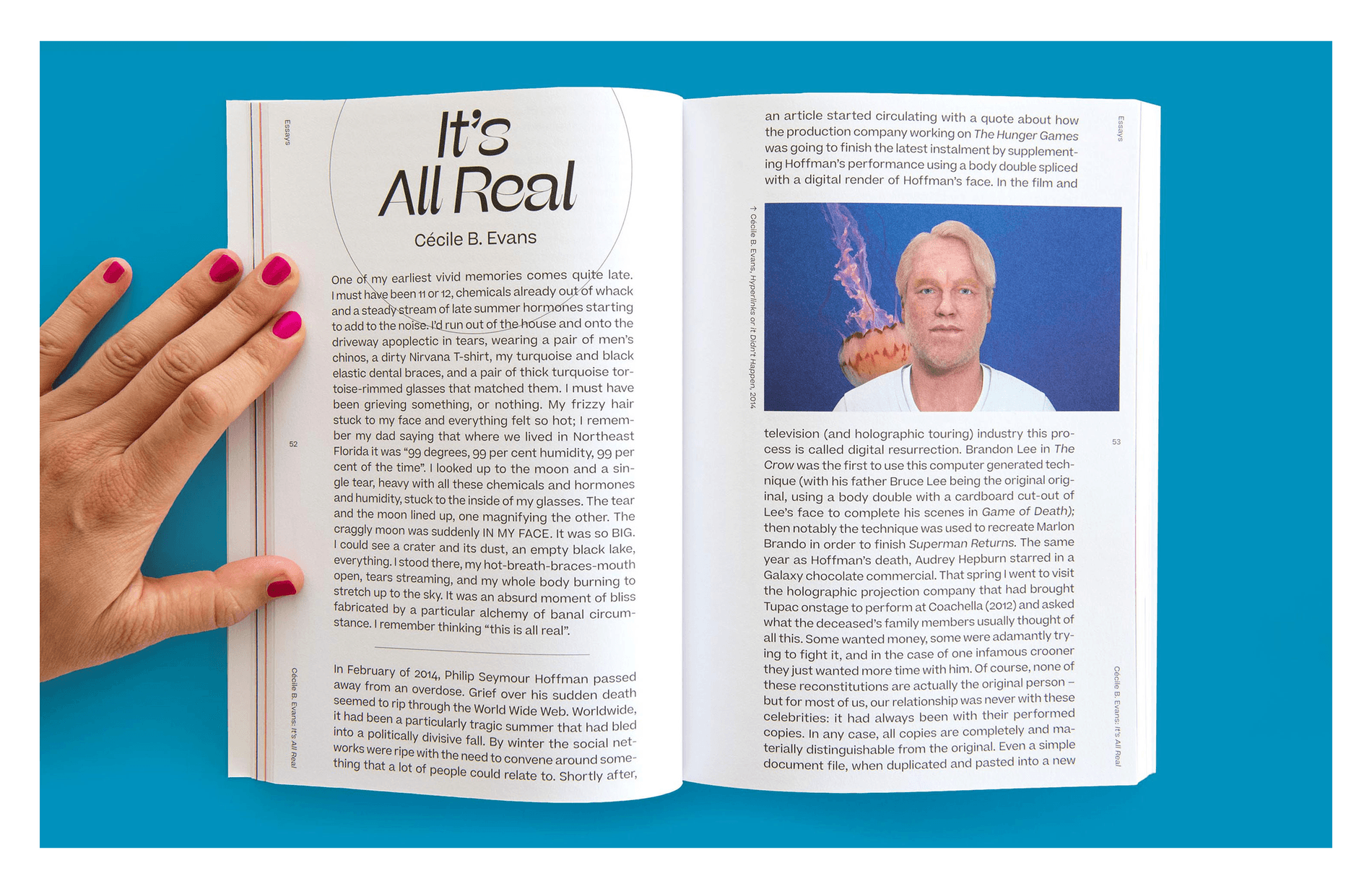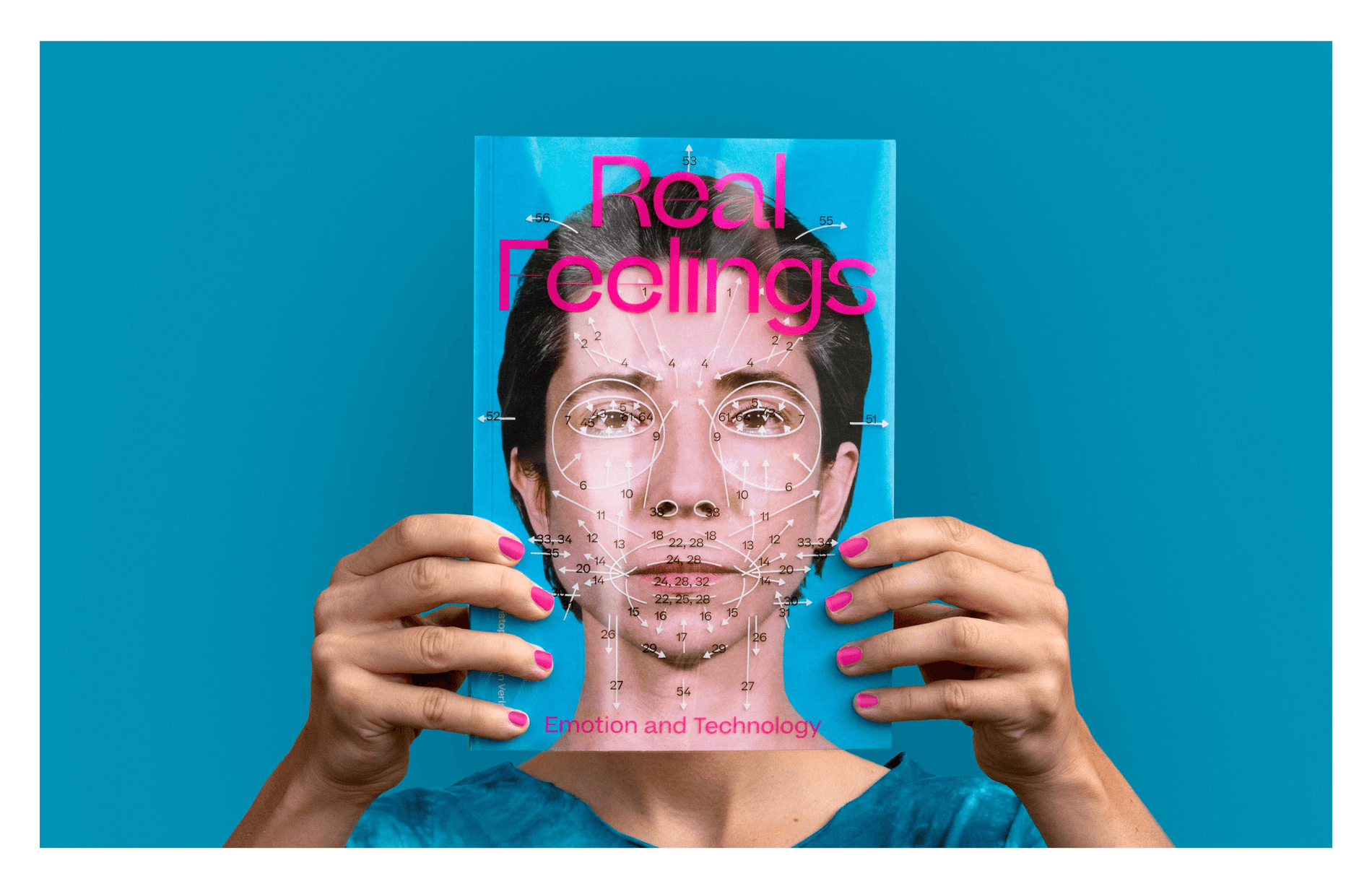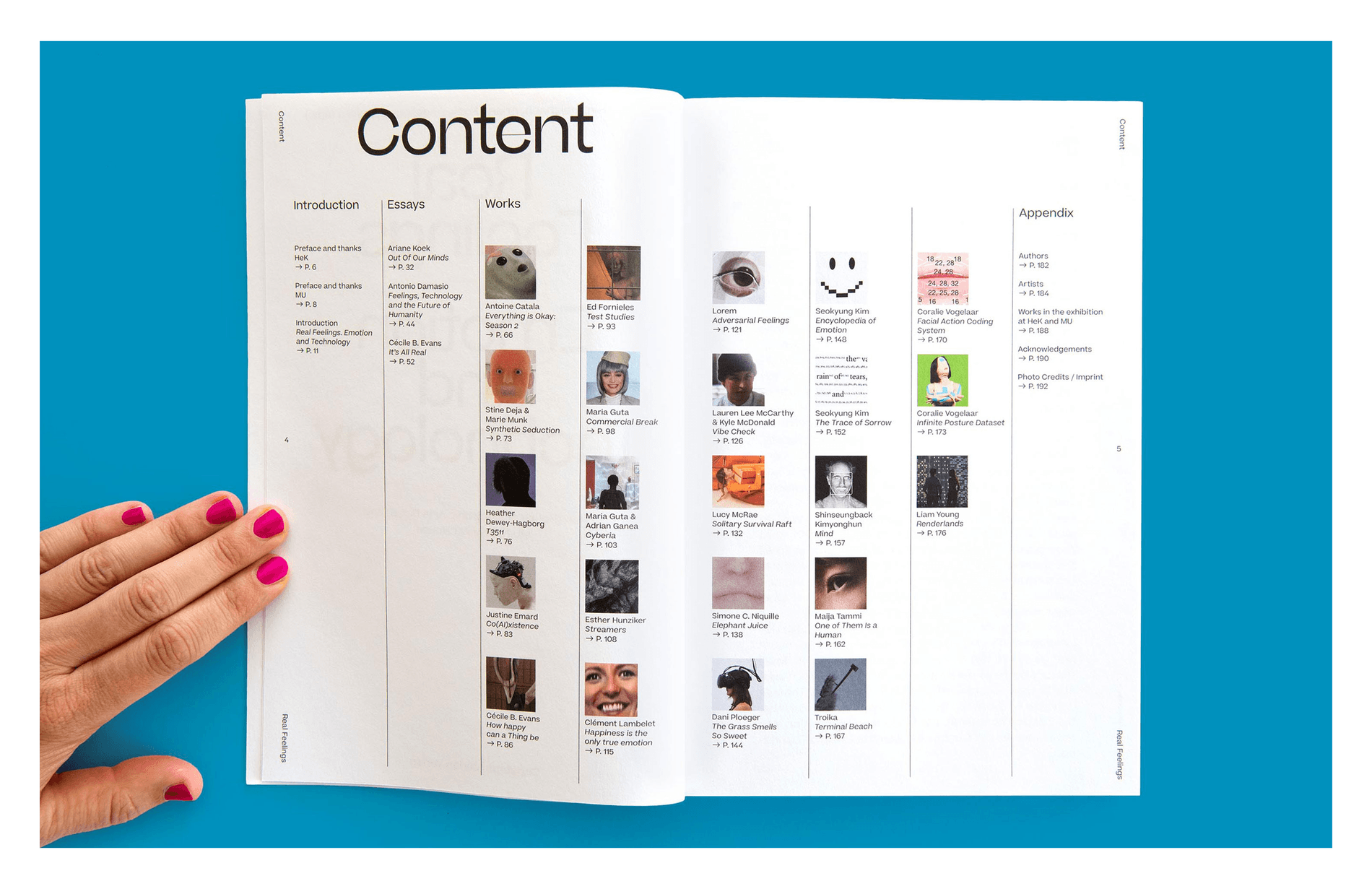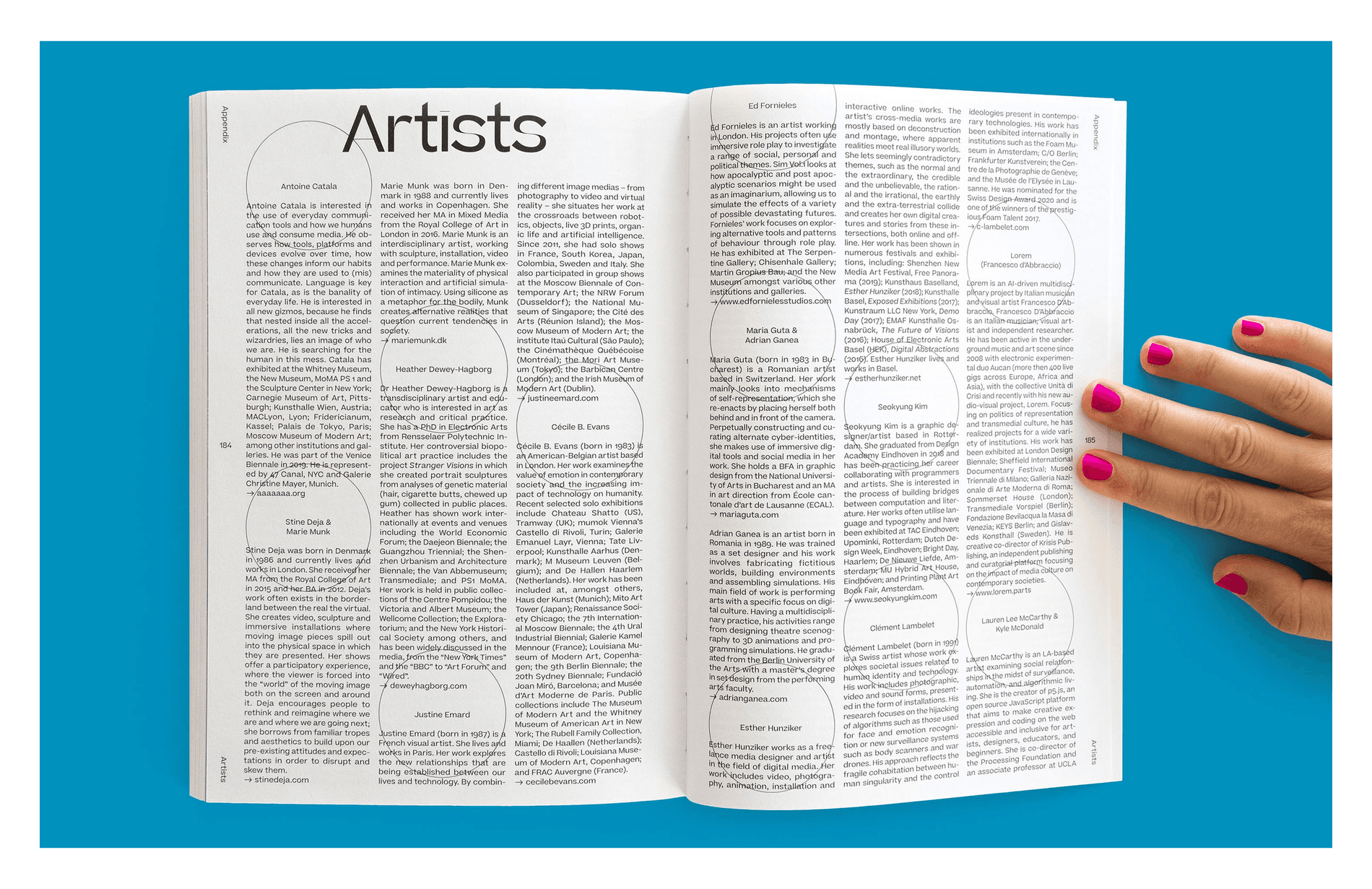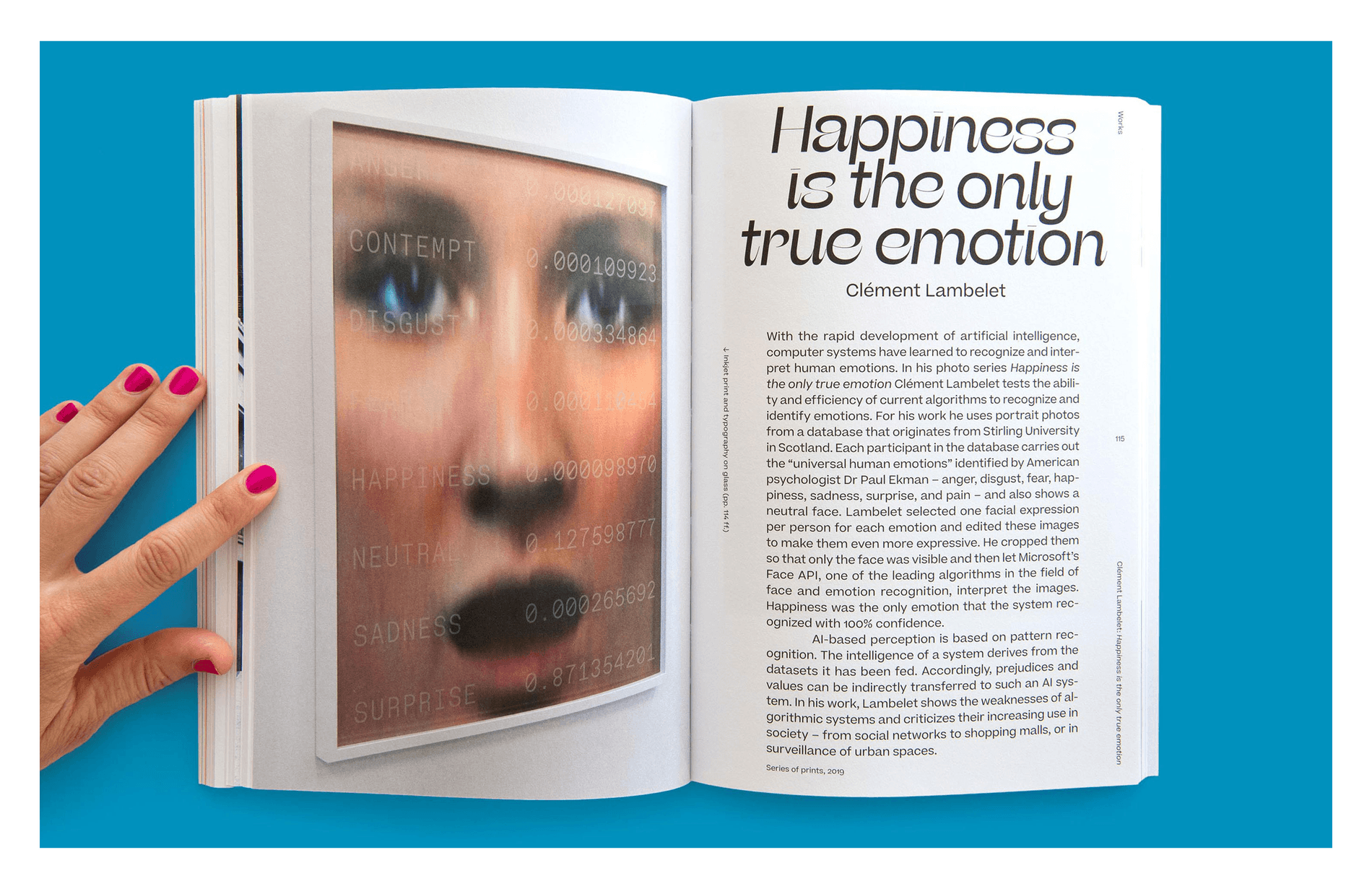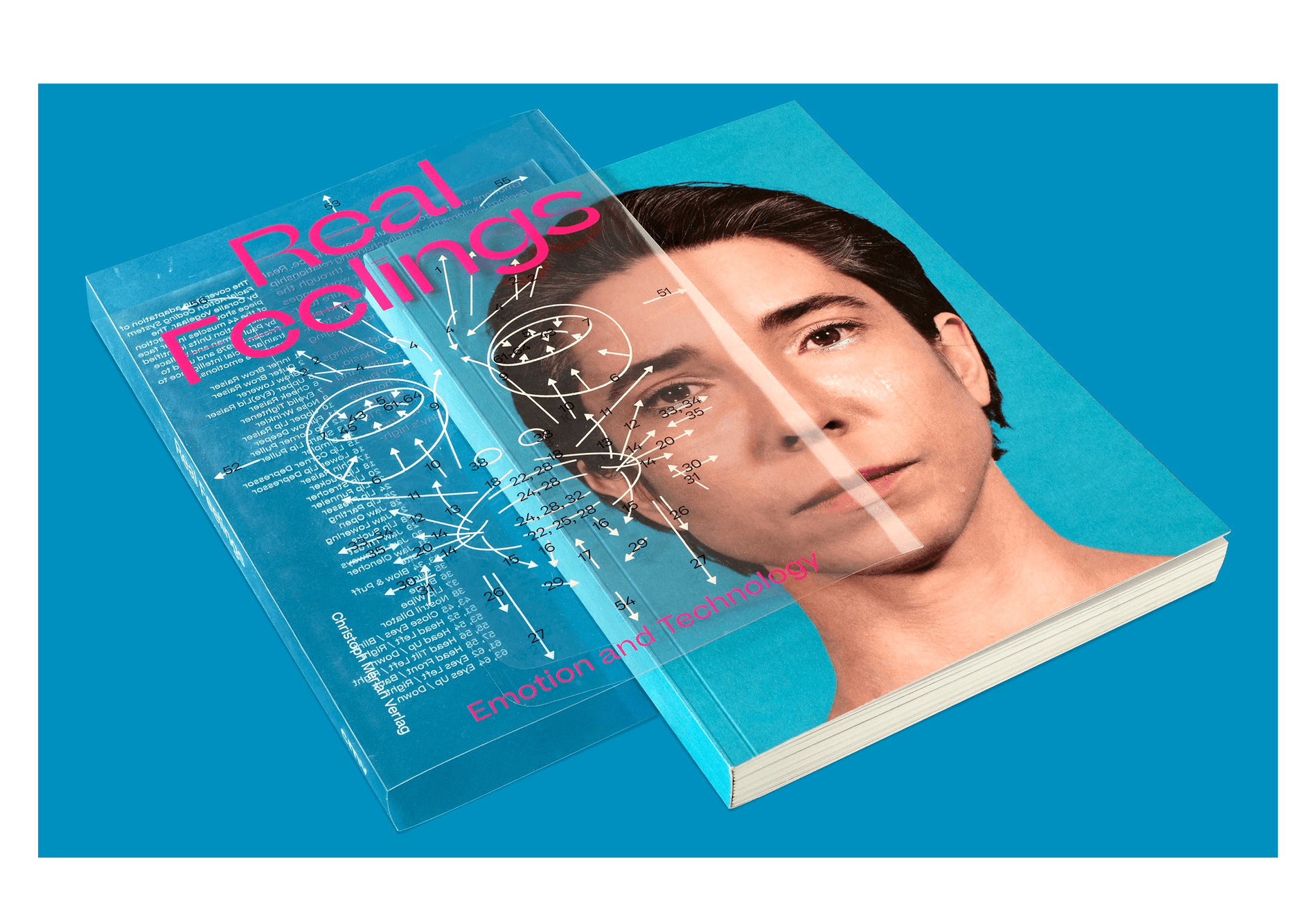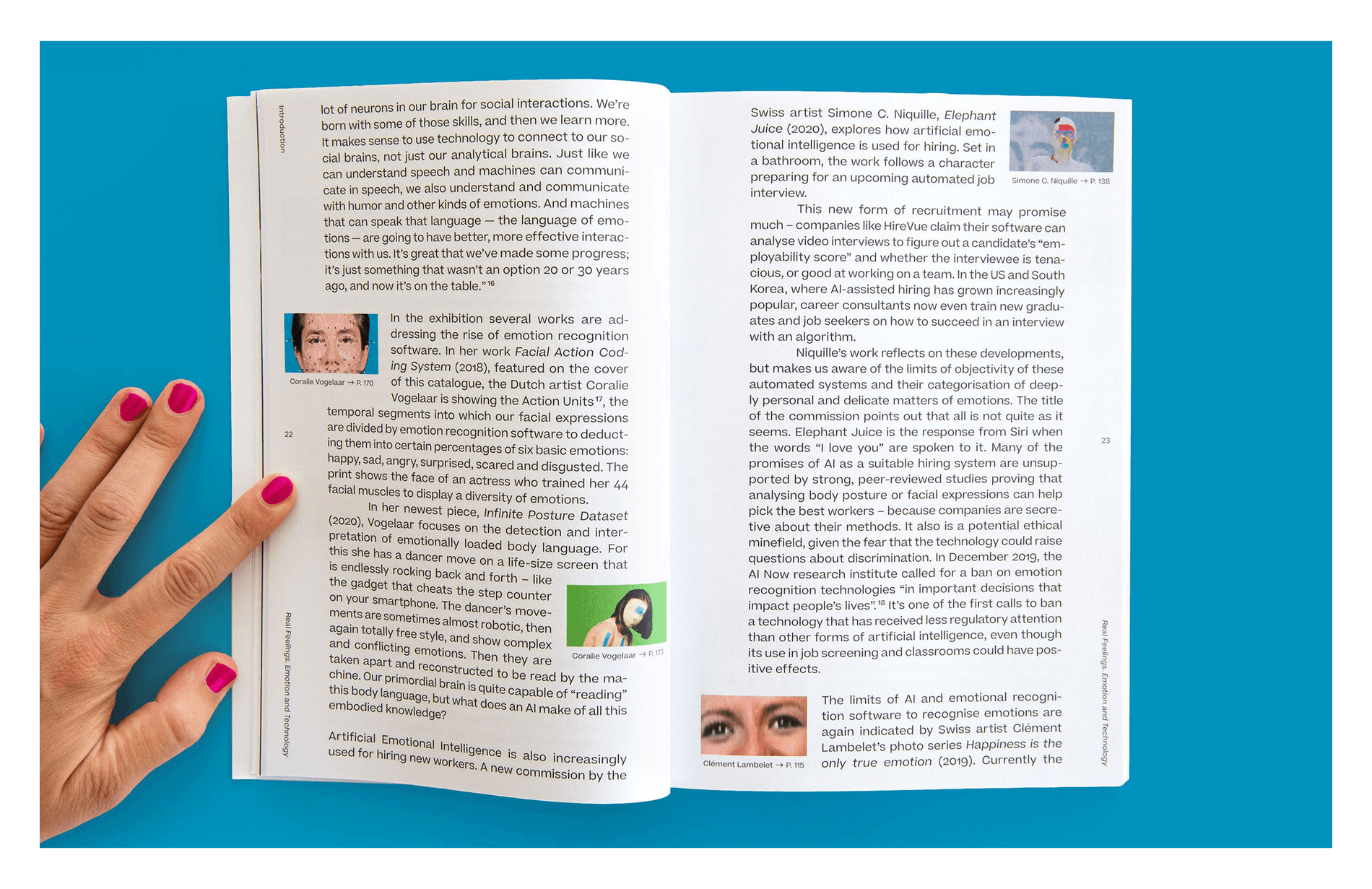
Real Feelings & Beatrice Display
For an international group exhibition at the House of Electronic Arts Basel, Swiss graphic design studio Hauser, Schwarz designed a catalog titled Real Feelings. The catalog explores the rapidly changing relationship between technology and emotions by making use of interesting materials, stark photography, and a typographic system designed with the Beatrice family.
On the cover, the title is set with Beatrice Display, and includes a stark portrait by Dutch artist Coralie Vogelaar of a person welled up in tears. The catalog comes with a translucent jacket that creates a diagrammatic overlay on the human’s face. “We came up with the idea to separate the face and the “action units” (arrows and numbers representing face muscles) in the artwork, for two reasons. First, to hide the person's emotion: you'll only see her tears when you take off the transparent film. Second, you can apply the transparent film in front of your own face and therefore, be part of the art,” wrote studio partner David Schwarz.
“The typeface, Beatrice Display, has a unique character that perfectly fit the topic of A.I., robotics and emotions. Its contemporary design was also mandatory for a publication covering such a trending subject,” Schwarz said. “Instead of going for a classic 2-column layout, we decided to set the text in a fairly large font size, as it felt warmer and more unique. To accentuate this design approach, we set the captions, pagination, and even the images displayed in the text in small size.”
Typeface: Beatrice Display & Beatrice